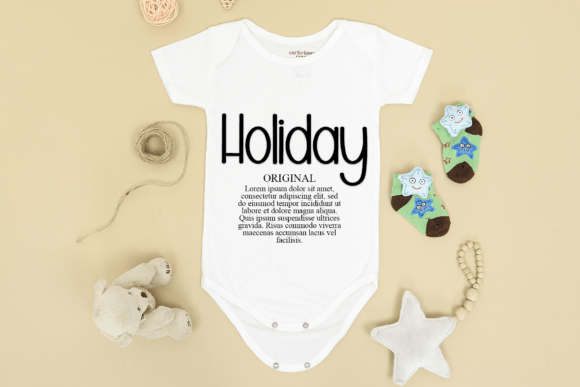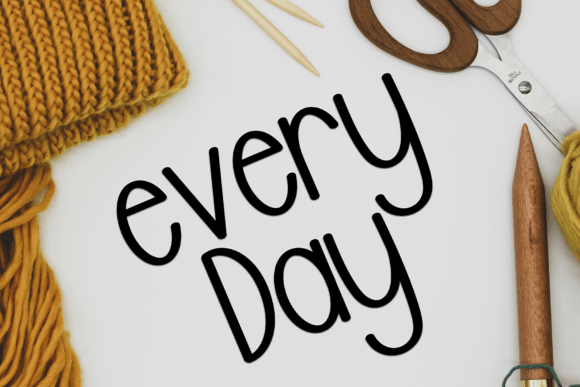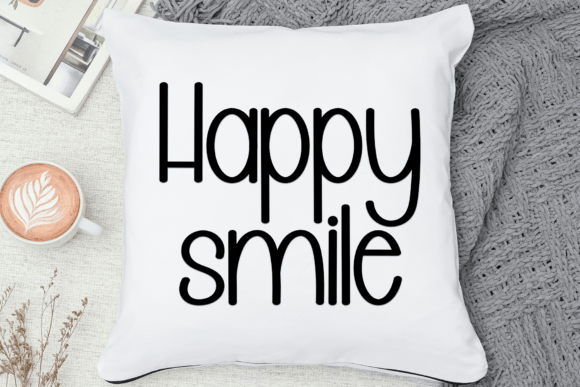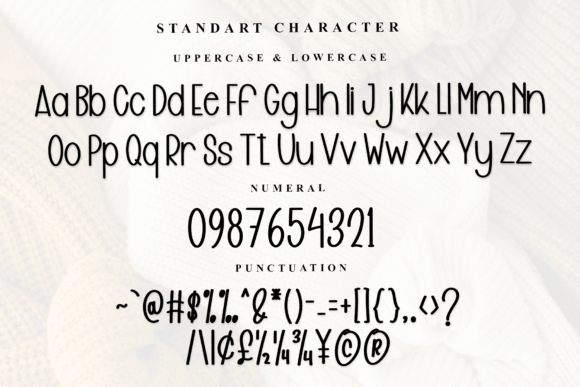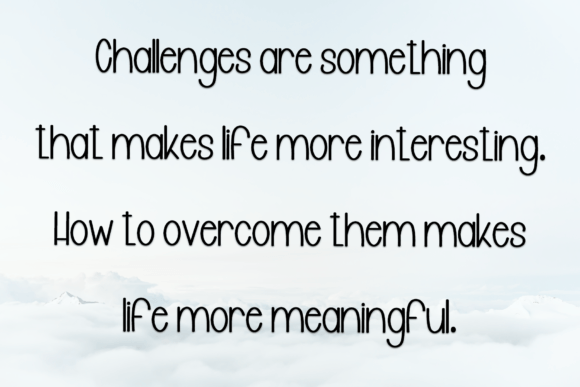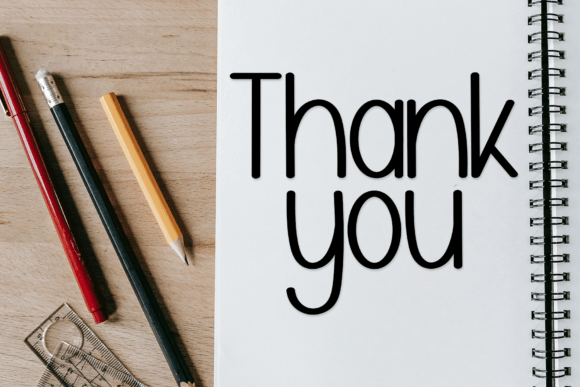
Hello Child Font: The Perfect Addition to Your Holiday Designs
Are you looking for a font that captures the warmth and coziness of the holiday season? Look no further than Hello Child Font! This charming handwritten font is perfect for adding a personal touch to your holiday messages, making everything look inviting and festive. In this article, we’ll dive into the features and benefits of Hello Child Font, and explore how you can use it to elevate your holiday designs.
The Characteristics of Hello Child Font
Hello Child Font is a beautifully crafted handwritten font that exudes a warm, festive feel. Its flowing letters are designed to bring a personal touch to your holiday messages, making them perfect for cards, decorations, and seasonal greetings. The font features:
- Handwritten style: Hello Child Font has a charming, handwritten style that adds a touch of personality to your designs.
- Flowing letters: The font features flowing letters that create a sense of movement and fluidity, making your designs look dynamic and engaging.
- Warm and festive feel: The font has a warm, festive feel that’s perfect for the holiday season, evoking feelings of coziness and nostalgia.
Using Hello Child Font in Your Designs
Hello Child Font is incredibly versatile and can be used in a variety of design applications, including:
- Holiday cards: Add a personal touch to your holiday cards with Hello Child Font, making them stand out from the crowd.
- Decorations: Use the font to create festive decorations, such as garlands, banners, and signs, that will add to the holiday cheer.
- Seasonal greetings: Make your seasonal greetings, such as Christmas, Hanukkah, or New Year’s Eve messages, more special with Hello Child Font.
Benefits of Using Hello Child Font
There are many benefits to using Hello Child Font in your holiday designs, including:
- Unique and eye-catching: The font’s unique, handwritten style will make your designs stand out from the crowd and grab attention.
- Emotional connection: The warm, festive feel of Hello Child Font will help create an emotional connection with your audience, making your designs more relatable and engaging.
Tips for Getting the Most Out of Hello Child Font
To get the most out of Hello Child Font, here are a few tips to keep in mind:
- Experiment with different colors: Try pairing Hello Child Font with different colors to create a unique and eye-catching look.
- Mix and match with other fonts: Combine Hello Child Font with other fonts to create a visually appealing contrast and add depth to your designs.
- Use it sparingly: Use Hello Child Font sparingly to create emphasis and add a touch of personality to your designs, rather than overwhelming the viewer.
Hello Child Font is a charming handwritten font that’s perfect for adding a personal touch to your holiday designs. With its flowing letters and warm, festive feel, it’s ideal for cards, decorations, and seasonal greetings. Whether you’re a designer or crafter, Hello Child Font is a great addition to your font collection, and with these tips and benefits, you’ll be able to get the most out of it. So why not give it a try and make your holiday designs shine?